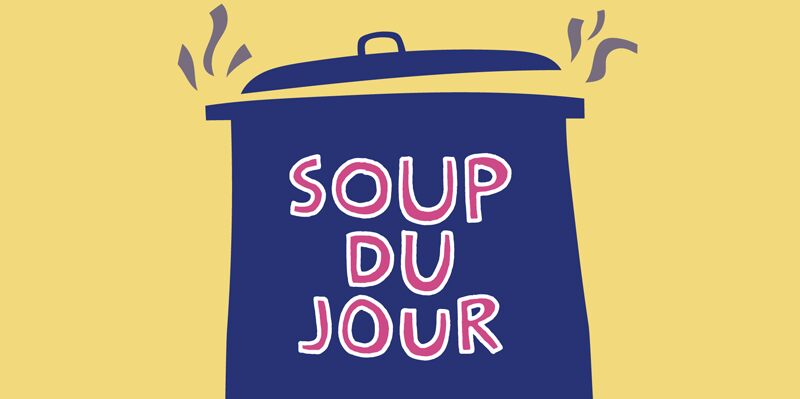
Soup Du Jour Solid leaps off the page with its playful contours and bold presence, a proud member of the Soup Du Jour font family. Crafted by the imaginative Pizzadude, this display font exudes a cartoon style that is both charming and impactful. Its robust weight commands attention, making it an irresistible choice for designers looking to inject personality and vibrancy into their work.
The rounded, solid letters of Soup Du Jour Solid are reminiscent of classic comic book lettering, offering a friendly yet assertive visual tone that can enliven any creative project. Whether it's for whimsical party invitations, eye-catching posters, or lively children's book titles, this font's versatility in conveying fun without sacrificing readability is unmatched.
The aesthetic appeal of Soup Du Jour Solid lies in its ability to balance a sense of mirth with professionalism. With each character confidently crafted to stand out, it’s perfect for brands aiming to project warmth and approachability. Dive into the world of Soup Du Jour Solid and let your designs make a statement that’s both playful and powerful.